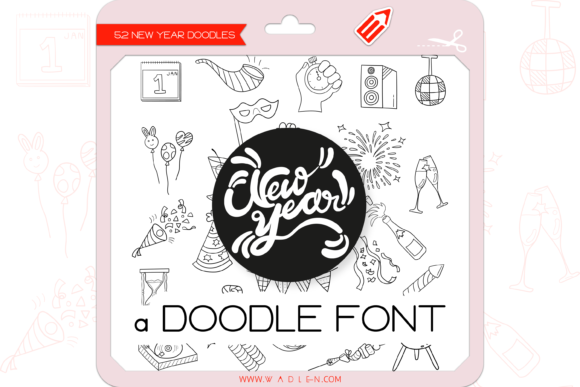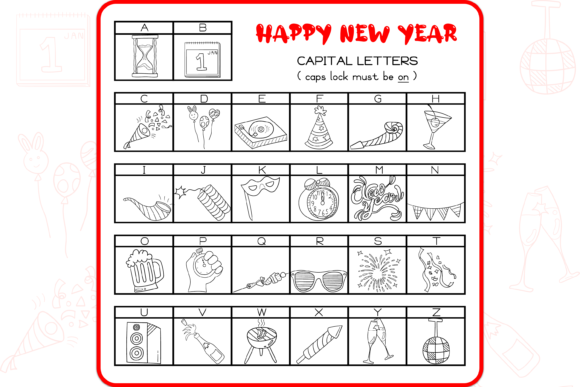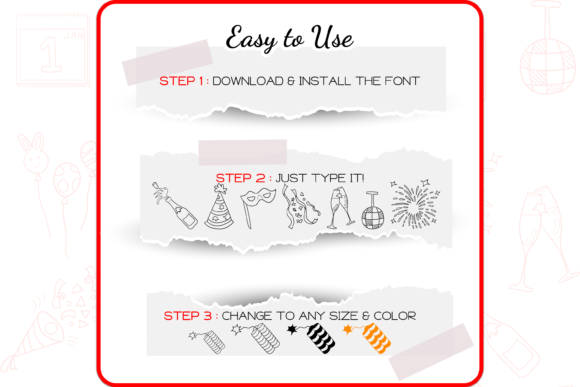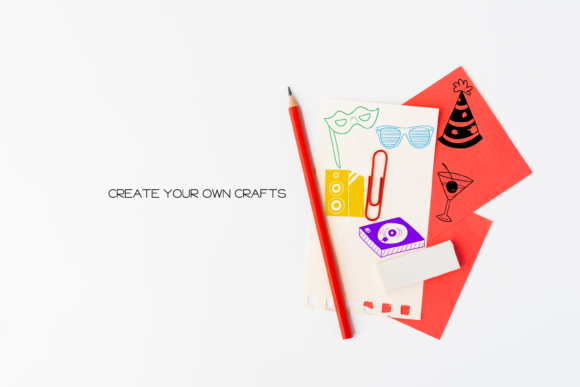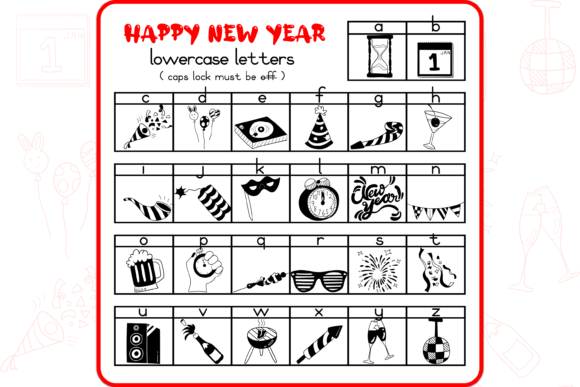
About New Year Font
The New Year dingbats font is a delightful and charming font that features 52 hand-drawn doodles inspired by New Year’s Eve and New Year celebrations. Here are some reasons why this font can be a valuable addition to your creative projects:
1. Festive and Celebratory Style: The hand-drawn nature of the New Year font gives it a festive and celebratory character. The doodles capture various elements associated with New Year’s Eve and New Year celebrations, such as fireworks, champagne glasses, party hats, clocks, and confetti. This style adds a sense of excitement and joy to your designs, making them visually appealing and perfect for New Year-themed projects.
2. Versatility: With 52 different doodles to choose from, the New Year font offers a wide range of options for your creative projects. Whether you’re designing New Year’s party invitations, greeting cards, social media graphics, or any project related to New Year celebrations, this font provides you with a variety of symbols to work with. You can mix and match the doodles to create festive compositions and add a touch of New Year spirit to your designs.
3. Event Promotion and Marketing: The New Year font can be an excellent choice for event promotion and marketing materials. If you’re organizing a New Year’s Eve party, a special event, or offering New Year’s discounts and promotions, this font can help you create eye-catching and festive designs. The doodles can be used as decorative elements, icons, or even as patterns to enhance your promotional materials and attract attention.
4. User-friendly Integration: The New Year dingbats font can be easily integrated into your design process. Each doodle corresponds to a specific glyph in the font, making it easy to access and use within your design software. This allows for effortless incorporation of the New Year symbols into your artwork, saving you time and effort compared to manual drawing.
5. Memorable and Engaging Designs: By incorporating the New Year font into your designs, you can create memorable and engaging visuals that capture the spirit of the holiday. The hand-drawn doodles add a personal and artistic touch to your artwork, making it distinct and captivating. Whether you’re designing New Year’s party flyers, social media graphics, or festive illustrations, this font can help you create outstanding and memorable designs.
In summary, the New Year dingbats font is a unique and cute collection of hand-drawn doodles that can add a festive and celebratory touch to your designs. Whether you’re creating New Year’s Eve invitations, marketing materials, or any creative project related to New Year celebrations, this font provides a versatile and user-friendly toolset. By leveraging the delightful style and variety of the New Year font, you can enhance your designs and bring a charming and joyful element to your New Year-inspired creative projects.